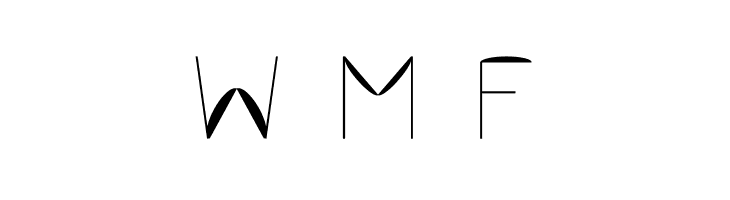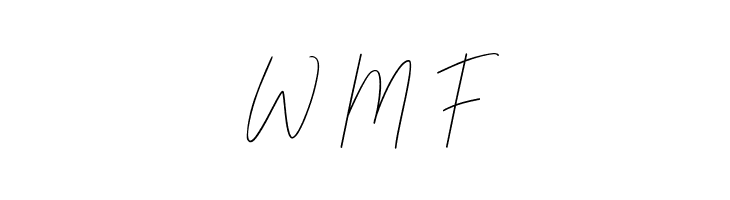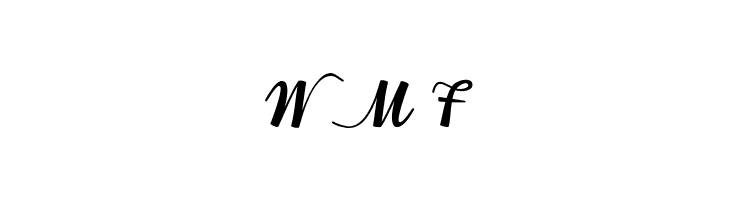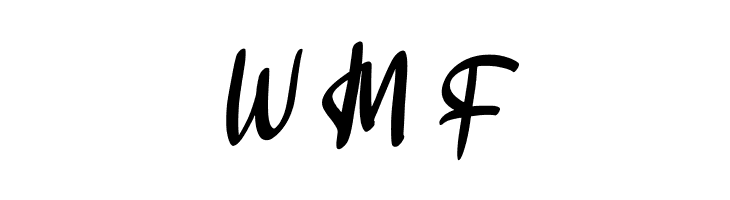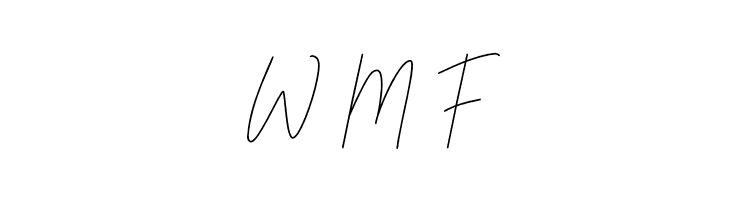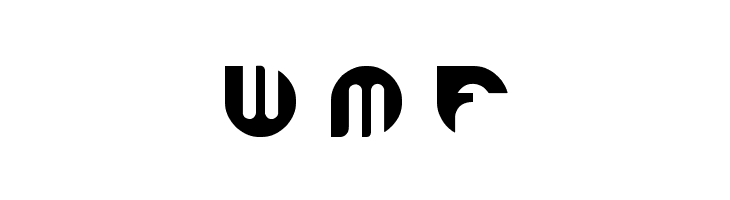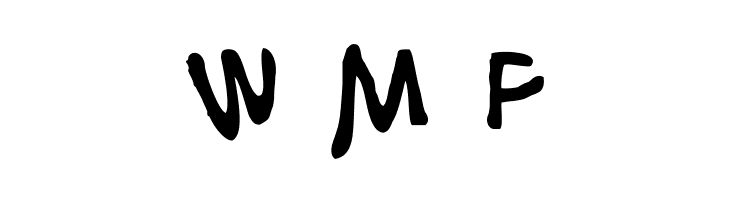
• Alex Toth
( Fonts by Daniel Werneck )
A playful, hand-drawn font with bold strokes and rounded edges.
• Alex-P1
A modern, geometric font with bold, angular characters and creative use of negative space.
• Alex's Writing Regular
( Fonts by Alex Dupré )
A casual, handwritten font with a playful and authentic feel.
• Alexa
A bold, cursive font with a playful and energetic style.
• Alexander Filled Regular
A bold, three-dimensional font with a vintage, shadowed style.
• Alexander Lettering
A delicate, flowing script font with elegant curves and a handwritten style.
• Alexander Lettering PERSONAL Regular
A delicate, elegant handwritten font with flowing, connected letterforms.
• Alexander Regular
A bold, three-dimensional font with strong shadow effects and a decorative style.
• Alexander Reguler Demo
A graceful script font with flowing, connected strokes and decorative flourishes.
• ALEXANDRA
A bold, geometric font with a futuristic and modern design.